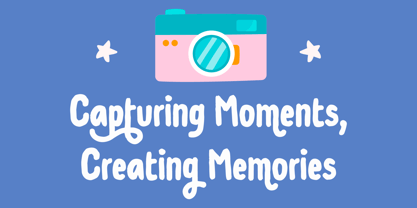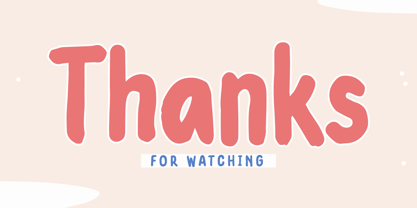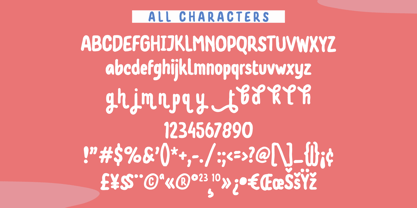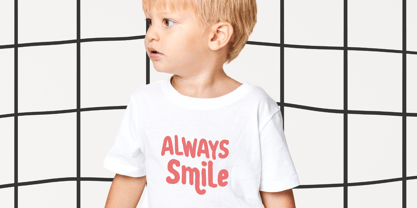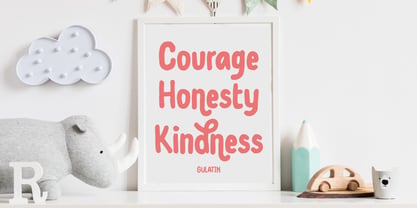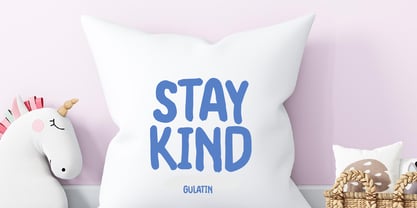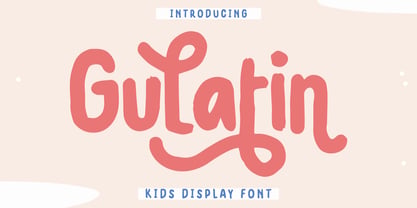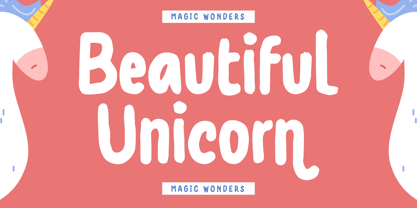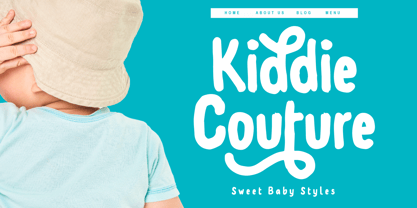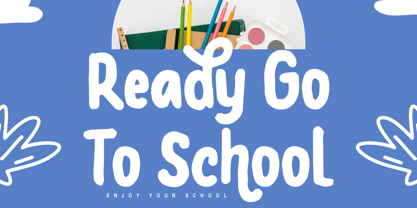
Gulatin
Meet Gulatin – The Ultimate Playful Kids' Display Font!
Add a scoop of joy, a dash of wiggle, and a whole lot of fun to your next creative project with Gulatin, a delightfully bubbly display font designed specifically for the young—and the young at heart!
With its soft, rounded edges and charmingly irregular hand-drawn look, Gulatin bounces off the page with an energetic, friendly personality. It perfectly captures the carefree spirit of childhood, making it the ultimate go-to typeface for designers, parents, and brands looking to spread a little happiness.
Why You’ll Love Gelatin:
• Wonderfully Whimsical & Swirly: Gulatin features unique alternate lowercase characters with beautiful, exaggerated loops and playful swashes (like its signature sweeping g, j, y, and t loops) that add instant magic and movement to any title.
• Thick & Scannable: Its bold, hand-painted weight ensures maximum legibility, making your text stand out instantly whether it's printed on a t-shirt or viewed on a digital screen.
• Full Character Set: Complete with standard uppercase and lowercase alphabets, numbers 0–9, essential punctuation, and currency symbols, giving you everything you need for a seamless design experience.
Perfect For a World of Creative Projects:
Gulatin is incredibly versatile and brings an authentic, cheerful vibe to countless children's designs:
• Kiddie Apparel & Couture: Create adorable typography for toddler graphic tees, pajamas, and baby onesies.
• Charming Room Decor: Design inspiring nursery wall art, custom pillows, and name plaques featuring sweet reminders like "Courage, Honesty, Kindness."
• School & Educational Materials: Make learning exciting with friendly book covers, classroom posters, worksheets, and "Ready Go To School" banners.
• Branding & Packaging: Craft eye-catching logos for toy brands, kid-friendly websites, birthday party invitations, and magical unicorn-themed merchandise.
Bring your designs to life and capture life's sweetest moments with a font that is as sweet, bouncy, and fun as childhood itself.